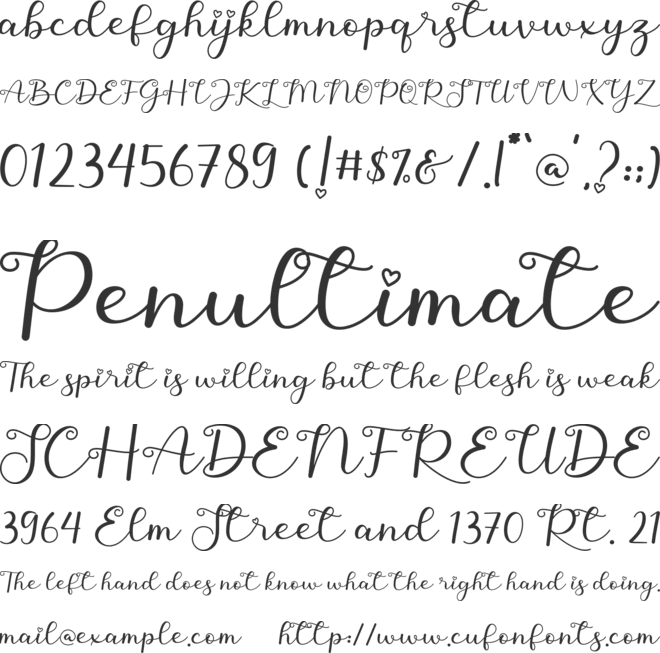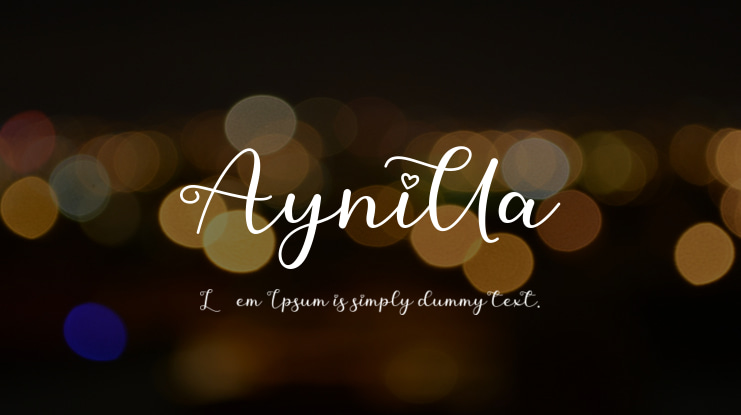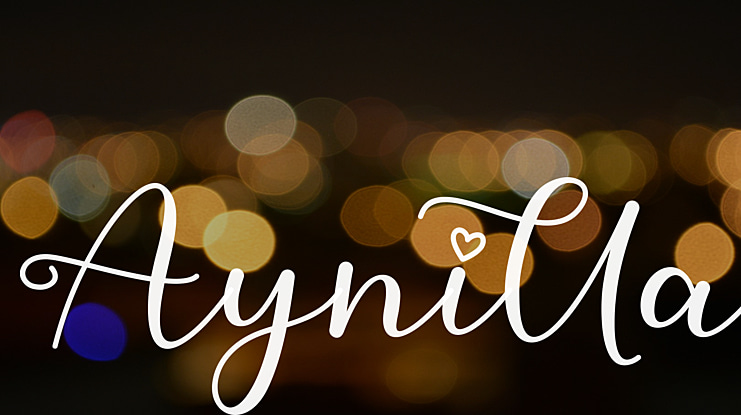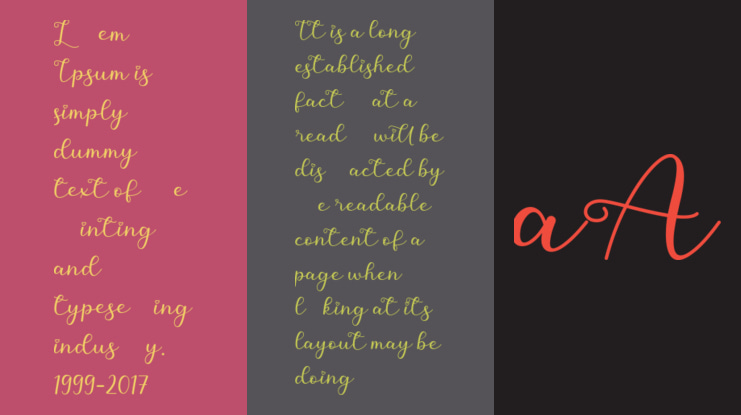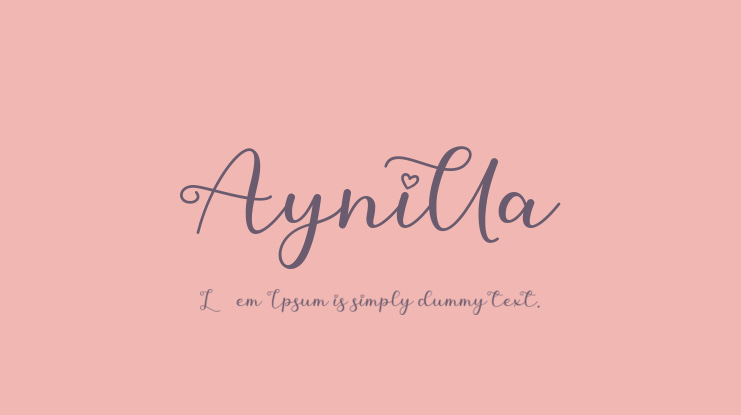
Aynilla Font
Aynilla is a romantic and sweet calligraphy typeface with characters that dance along the baseline. It will add a luxury spark to any design project that you wish to create! This font is PUA encoded which means you can access all of the amazing glyphs and ligatures with ease!